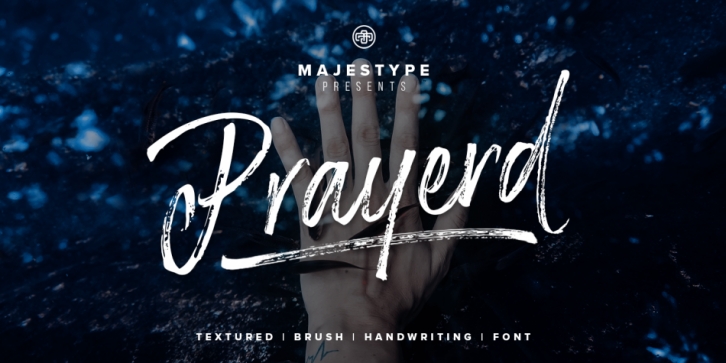
Designed by Dexsar Harry Anugrah, Prayerd is a dingbat and modern calligraphy font family. This typeface has three styles and was published by Majestype.
Prayerd is the energic font made by Brushpen.
It comes with a lot of glyphs and the Extras will give you more option to play with your creativity.
Prayerd focuses on texture, neatness and uniqueness on every glyph so this font will look really nice on design like t-shirt design, paper bag, packaging, branding and other goods.